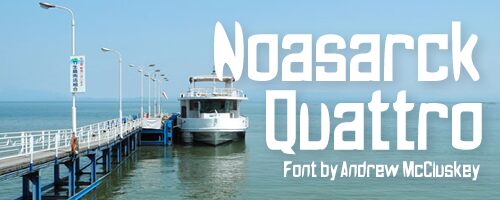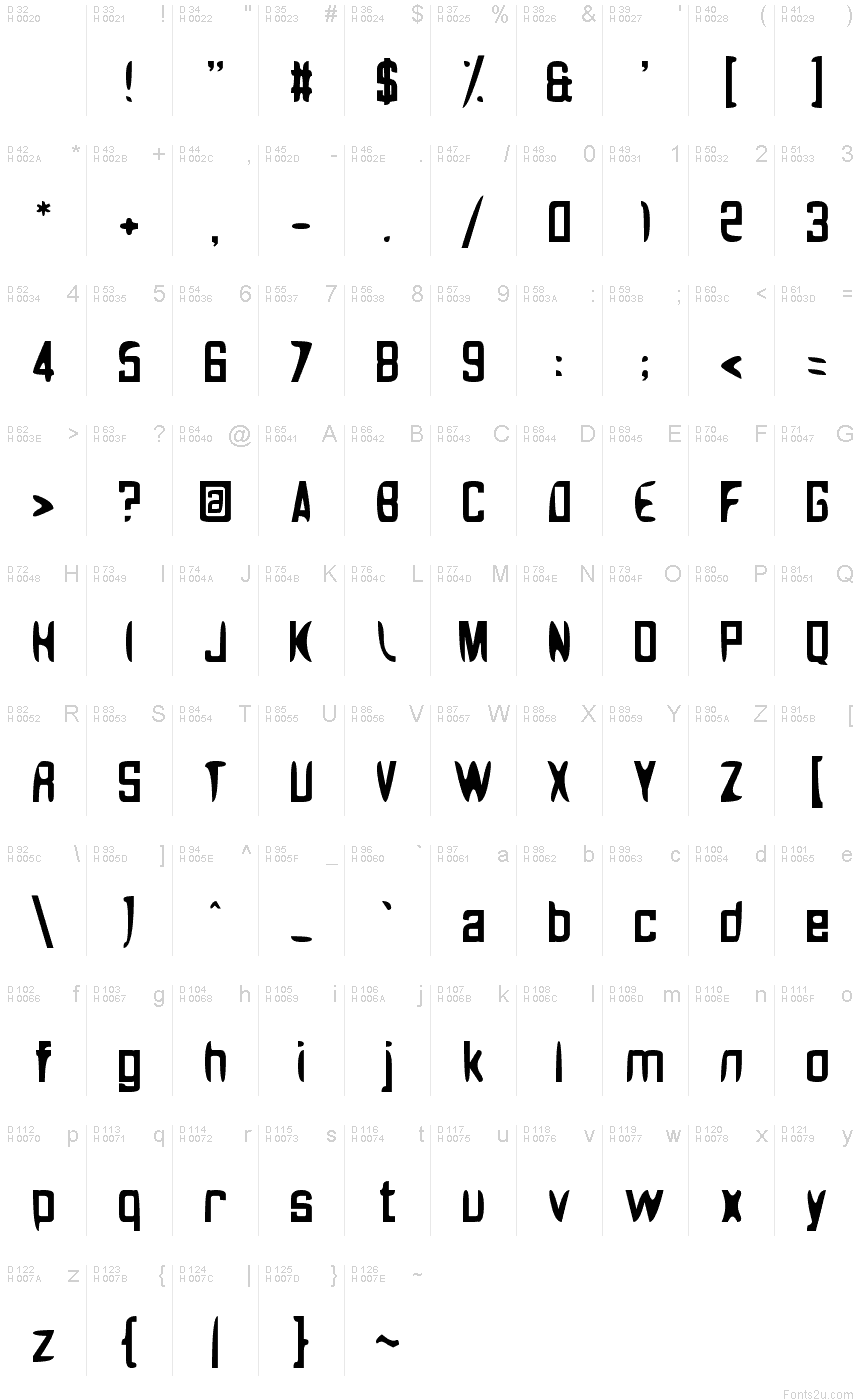
Noasarck Quattro
Noasarck Quattro by NAL Games is a free distorted display font with towering, uneven letters and a deliberately warped silhouette. The shapes look pinched, stretched, and oddly elastic.
An experimental fashion label or electronic music venue could use it for an eccentric, slightly futuristic identity. Its dramatic proportions also suit album artwork, event posters, and game graphics, especially when the lettering needs to feel unstable or otherworldly. In those settings, the alphabet can become part of a strange architectural emblem or interface rather than serving as neutral text.